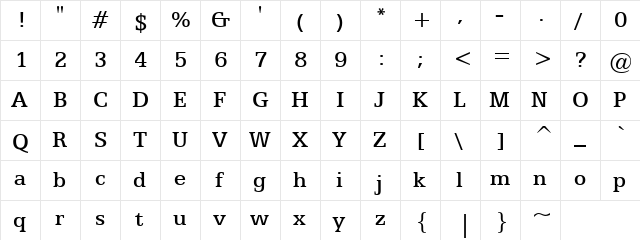
Duetche Dasr Regular
Design Context for Duetche Dasr Typeface
Duetche Dasr offers clean, dependable letterforms without strong stylistic allegiance, making it a practical choice for designers who need flexibility.